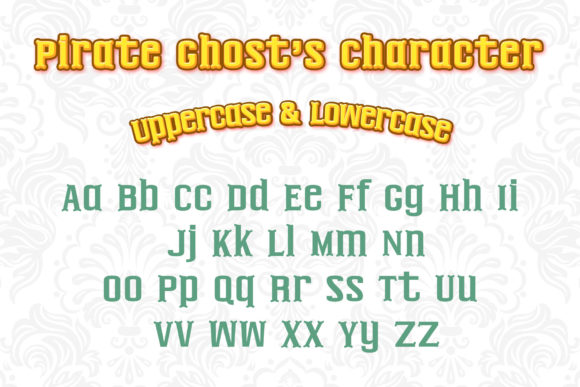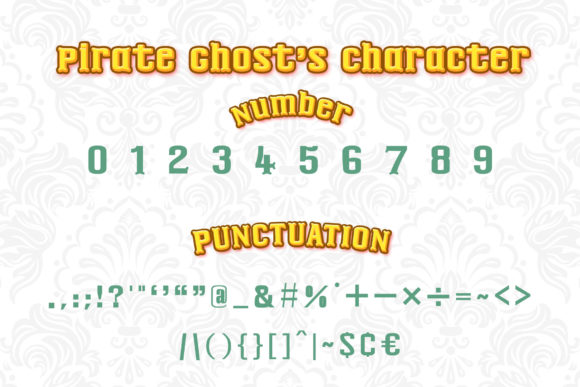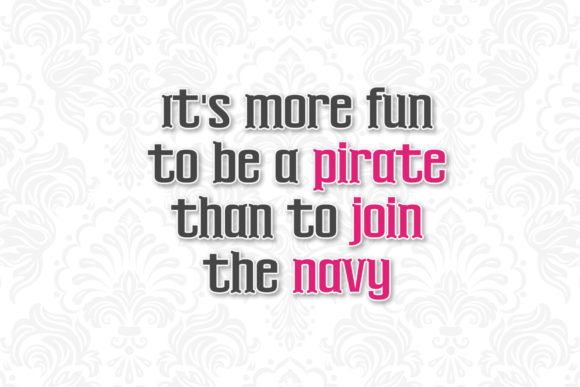
Introduction to Pirate Ghost Font
Pirate Ghost is a bold and authentic serif font.
Why Choose Pirate Ghost Font?
Pirate Ghost Font offers exceptional quality and versatility, making it a valuable addition to your design toolkit. Whether you’re creating for personal projects or commercial use, Pirate Ghost Font delivers professional results.